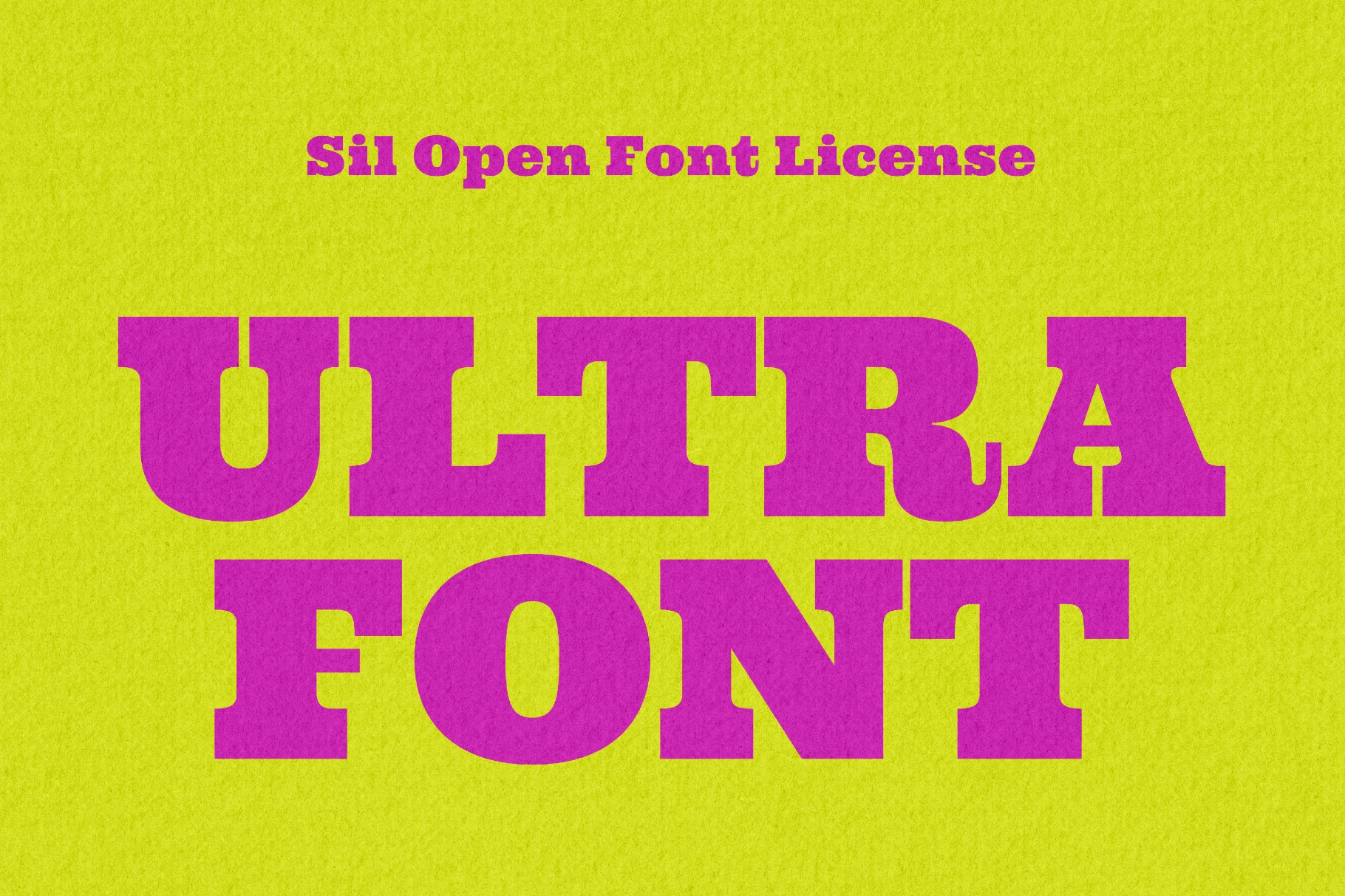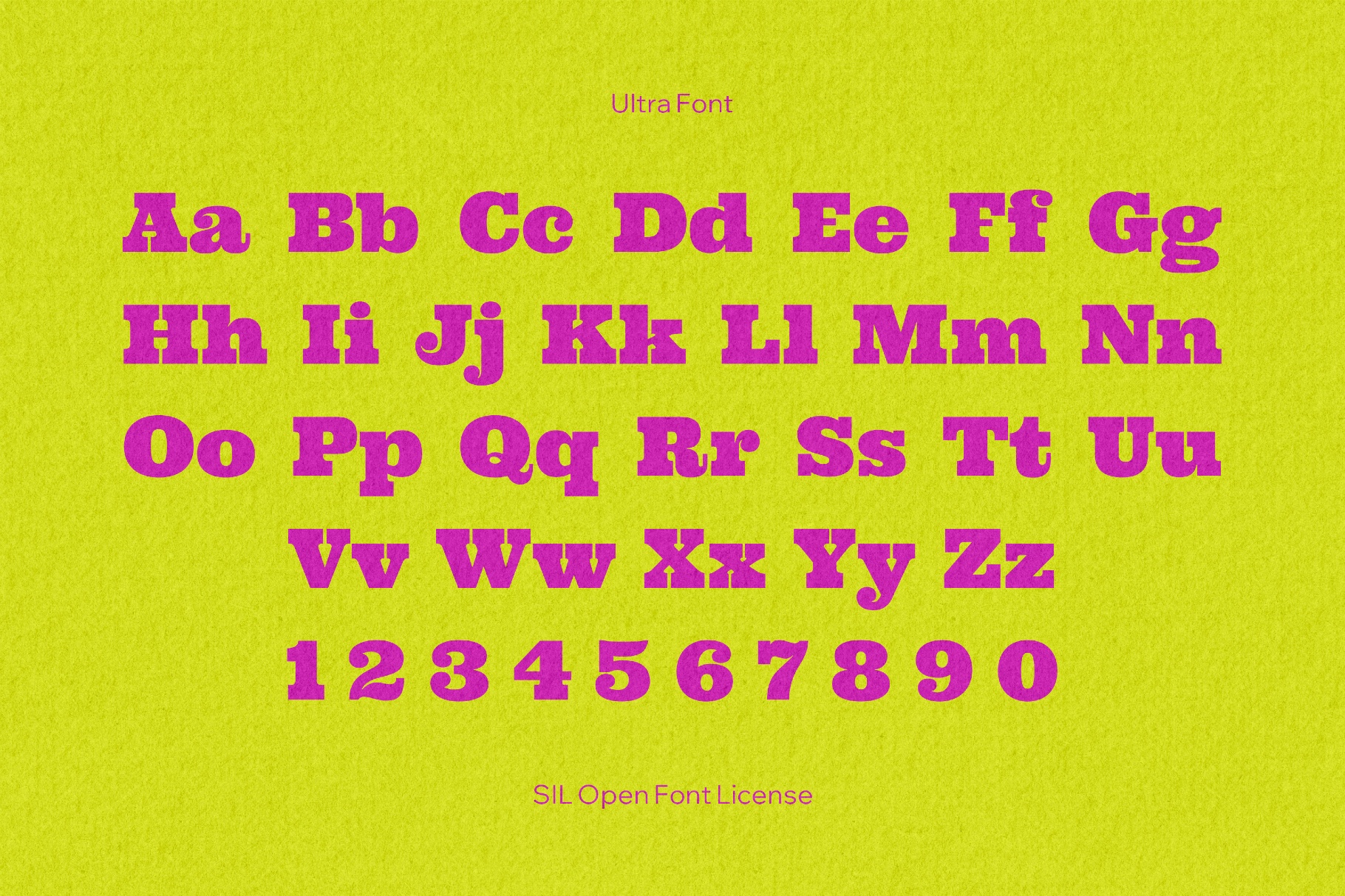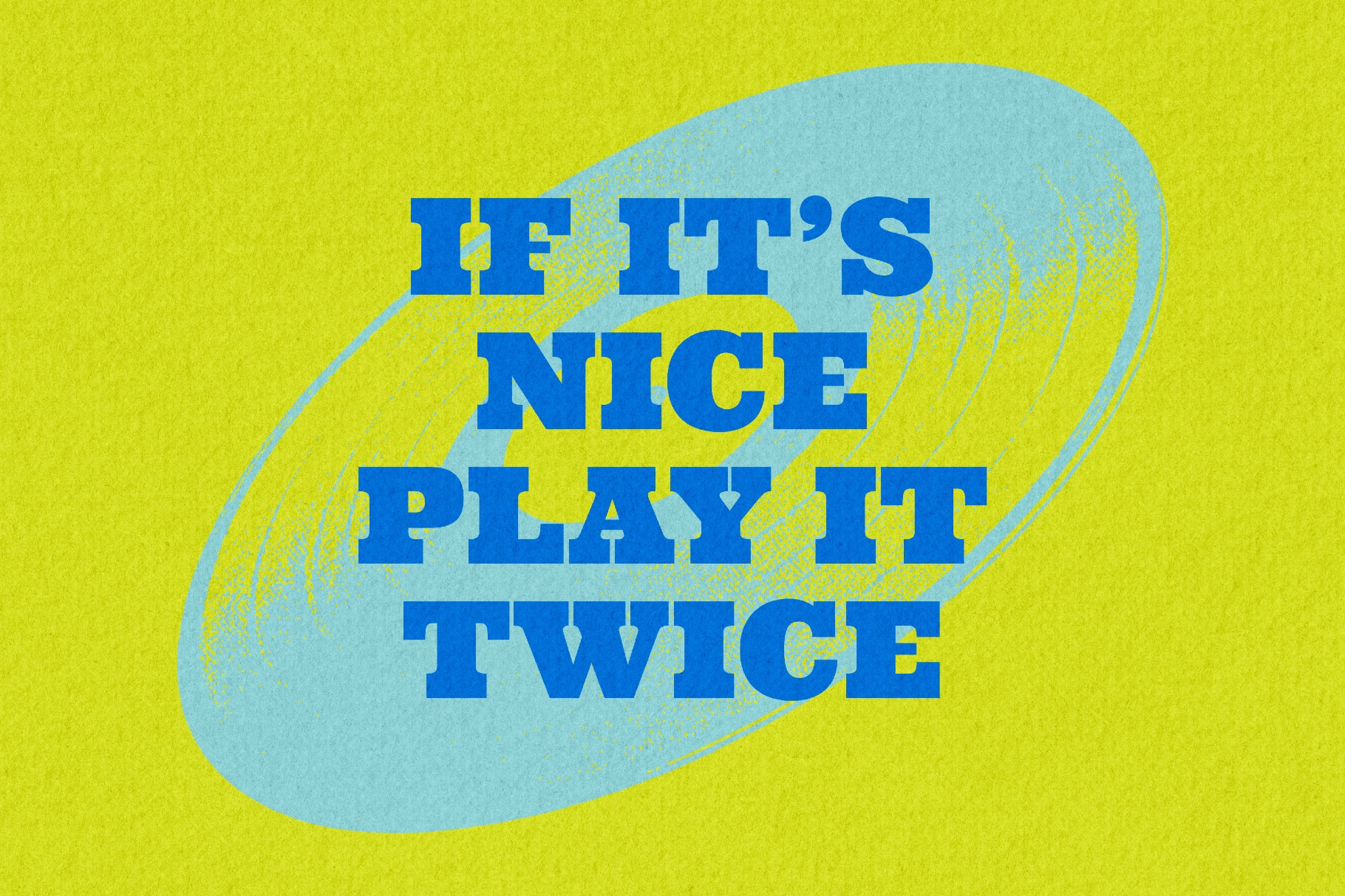
Ultra Font
The heavyweight slab serif is rooted in classic American wood type like Clarendon and Egyptian, and recalls circus posters and early industrial print. It performs strongly in poster titles, logos, food and beverage packaging, editorial headlines, signage, merch graphics, campaign visuals, and branding.
• Uppercase and lowercase letters.
• Numbers, punctuation, and symbols.
• Extended Latin support for multilingual European layouts.
• Basic mathematical symbols.